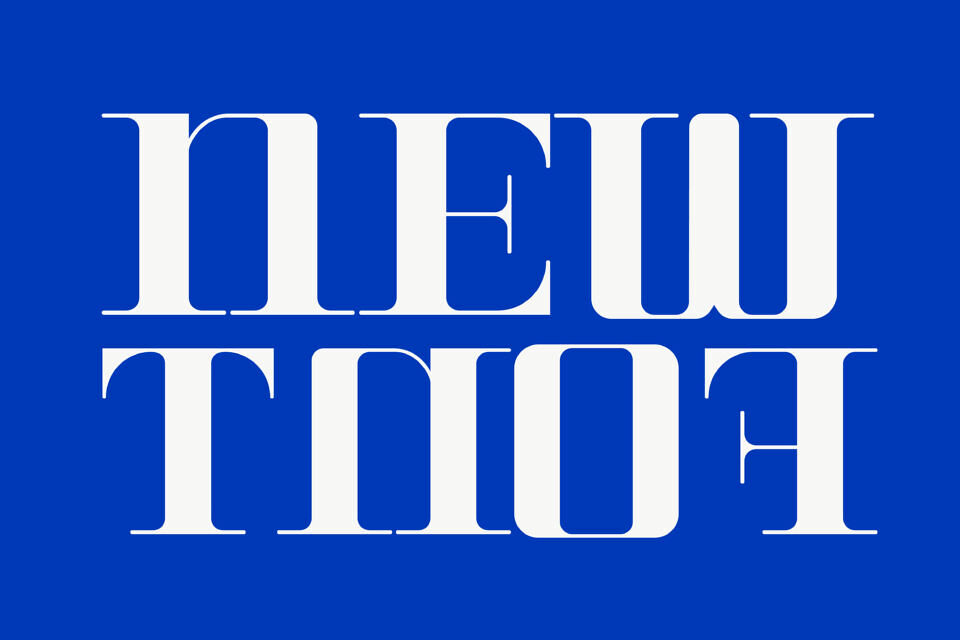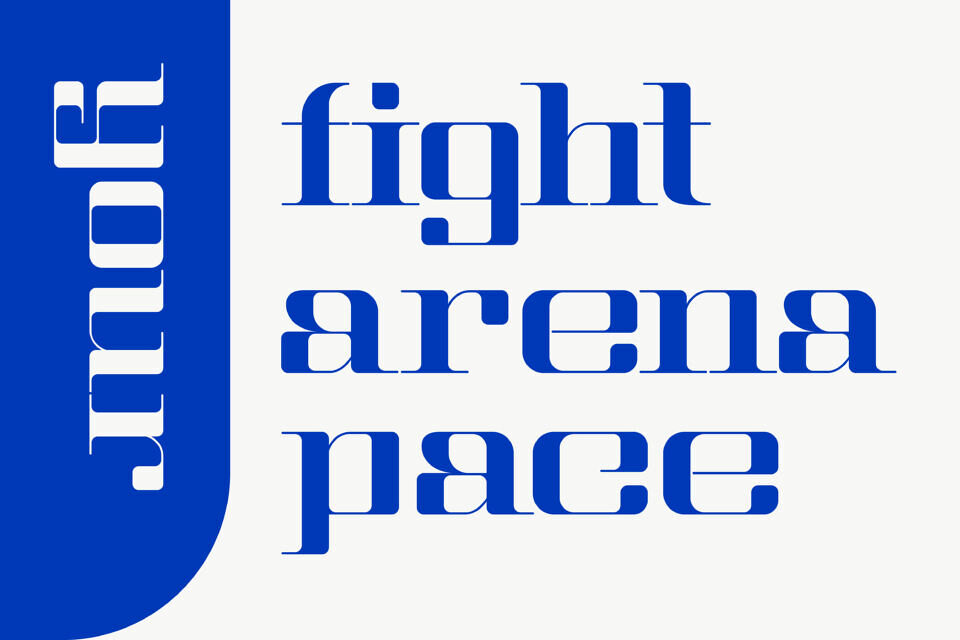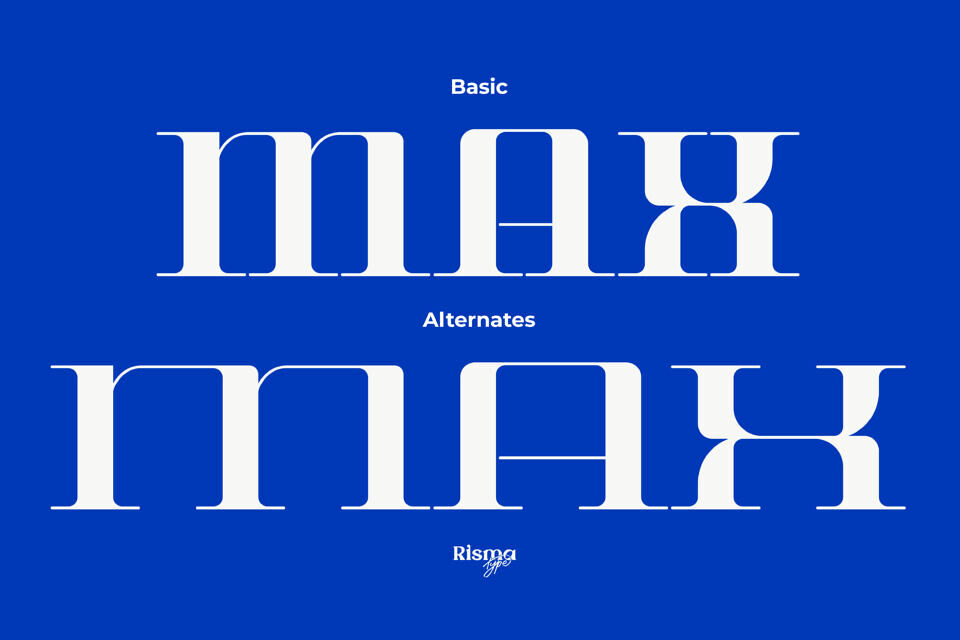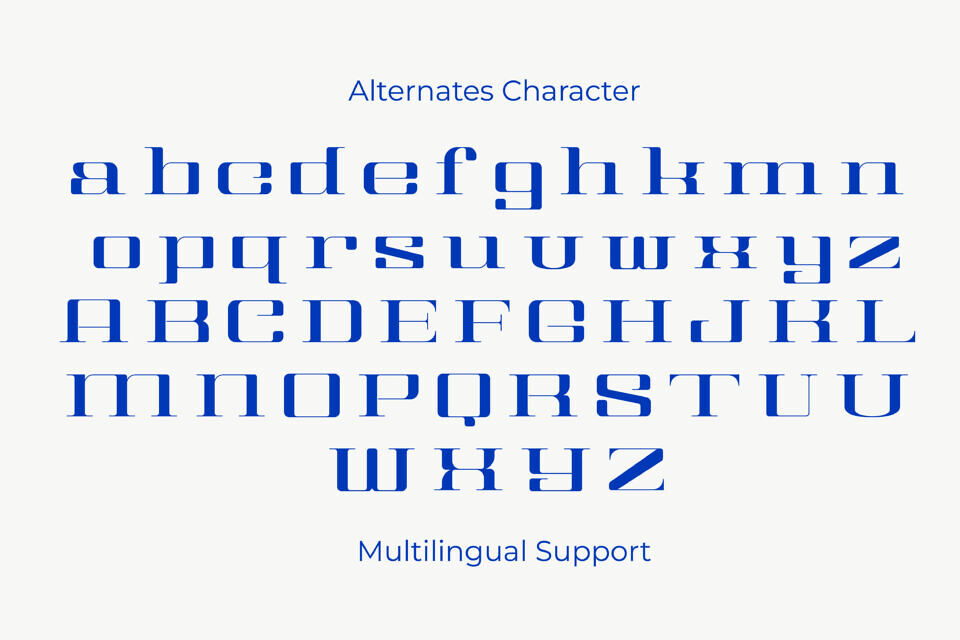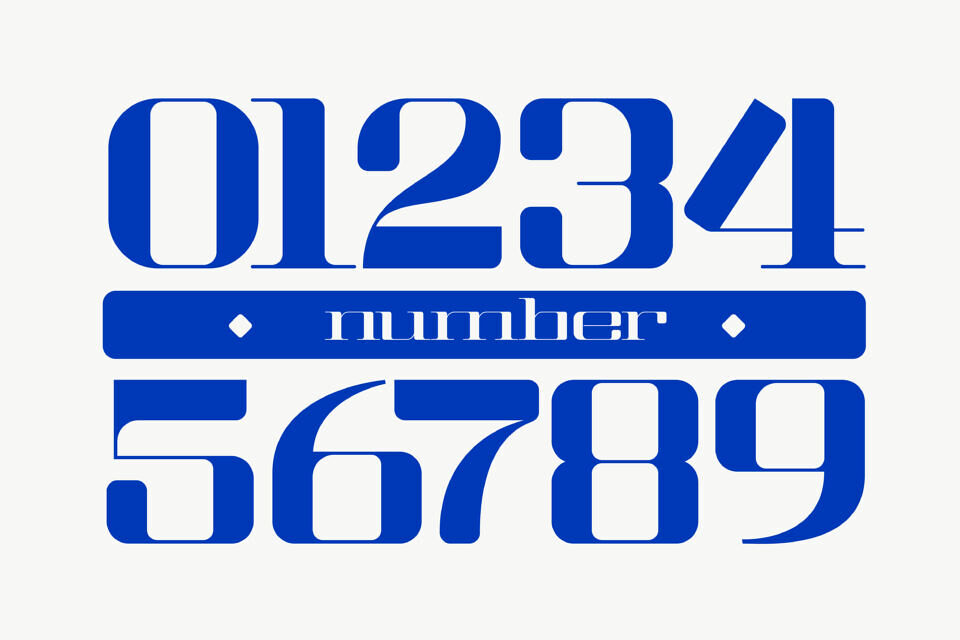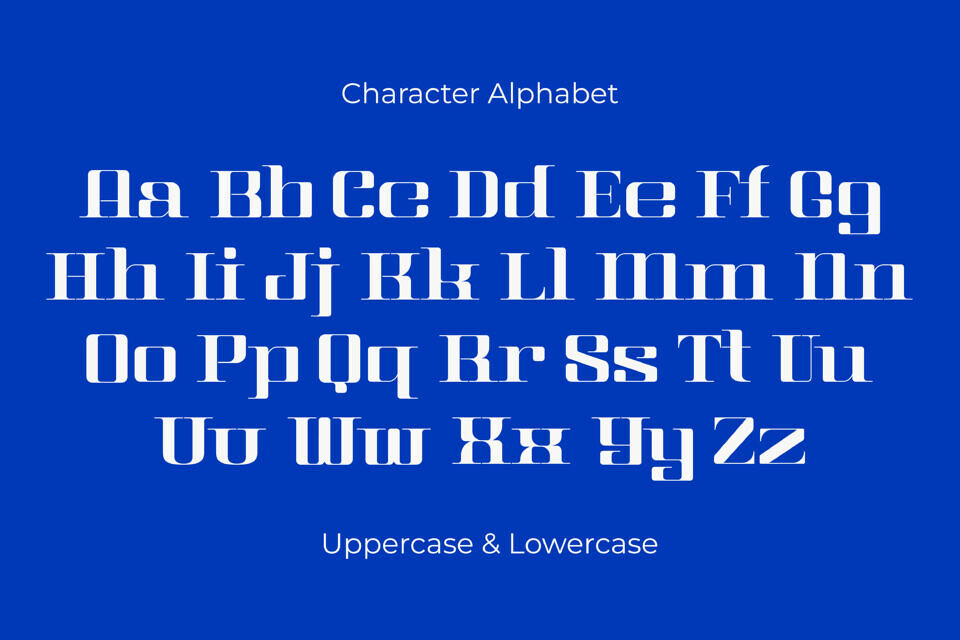
Zustra Font
Zustra is an elegant serif typeface designed by Risma Type. Featuring both Regular and Italic styles, it combines classic serif aesthetics with a modern twist.
With 364 glyphs per style, it offers a wide range of characters for diverse design needs. Ideal for branding, headlines, and editorial use, Zustra delivers refined curves and sharp details for a sophisticated look.